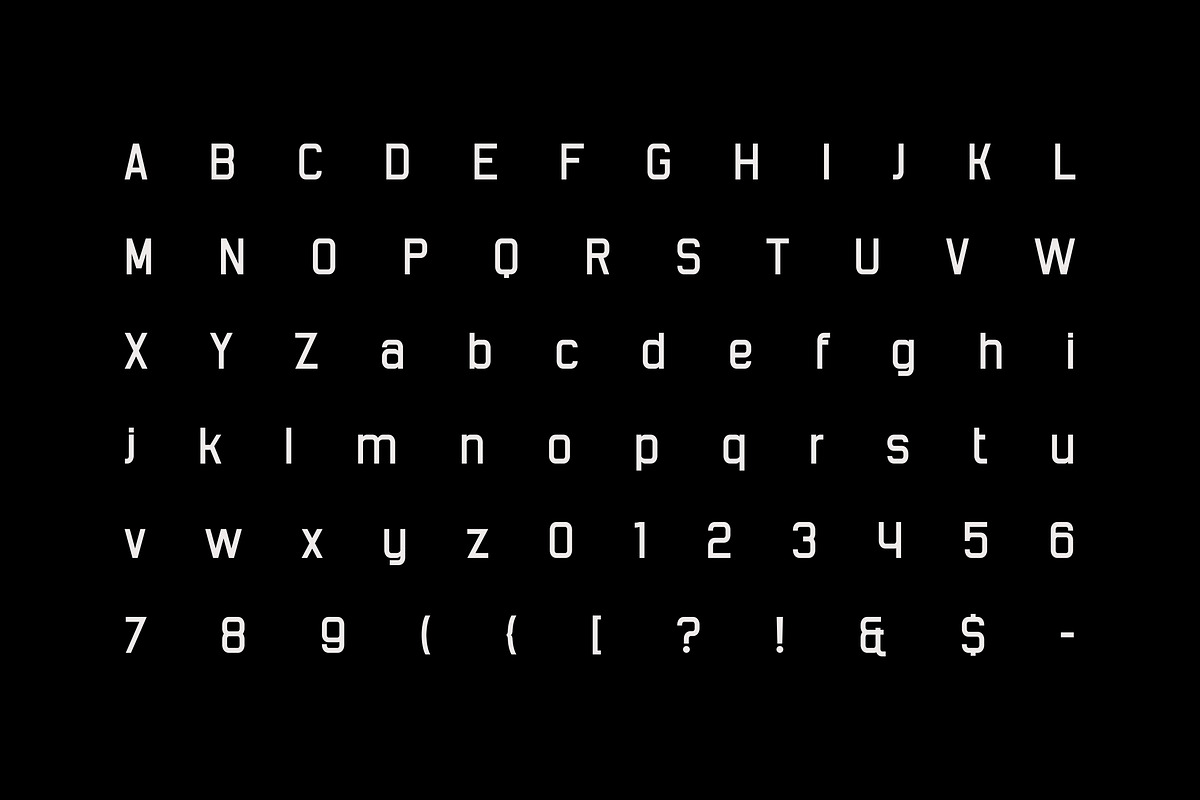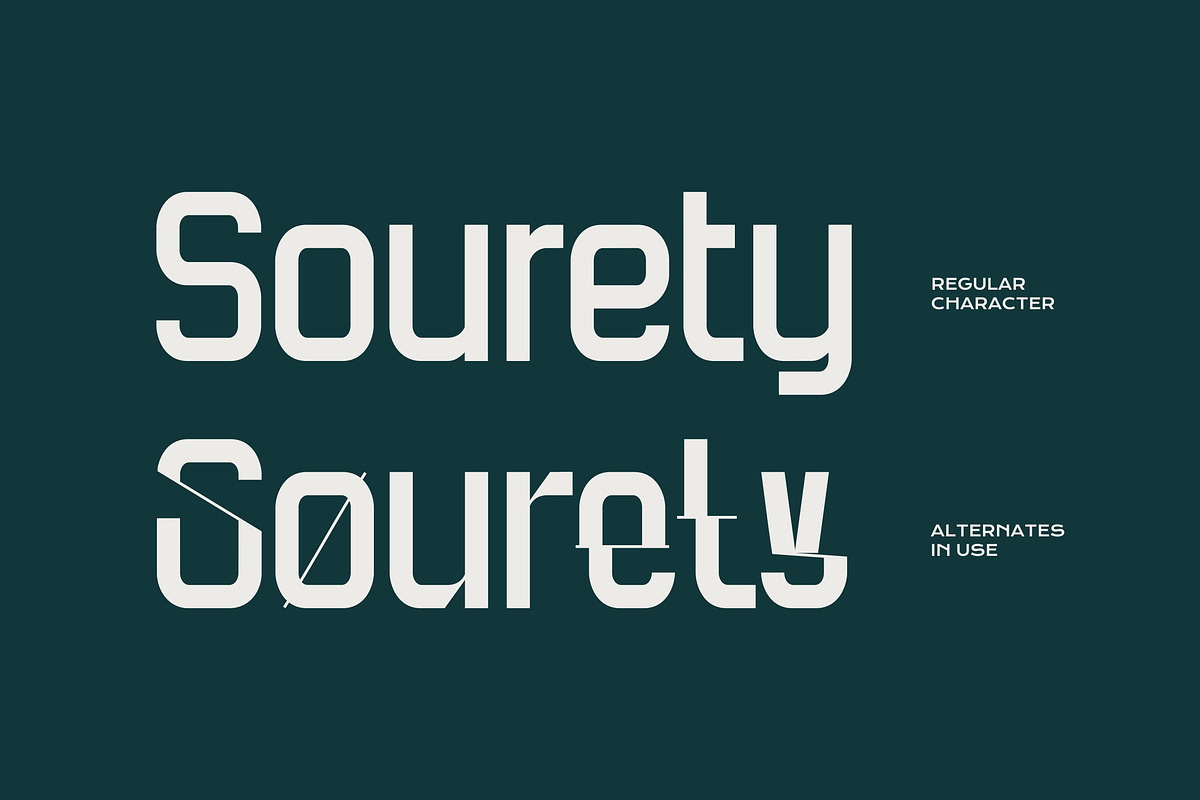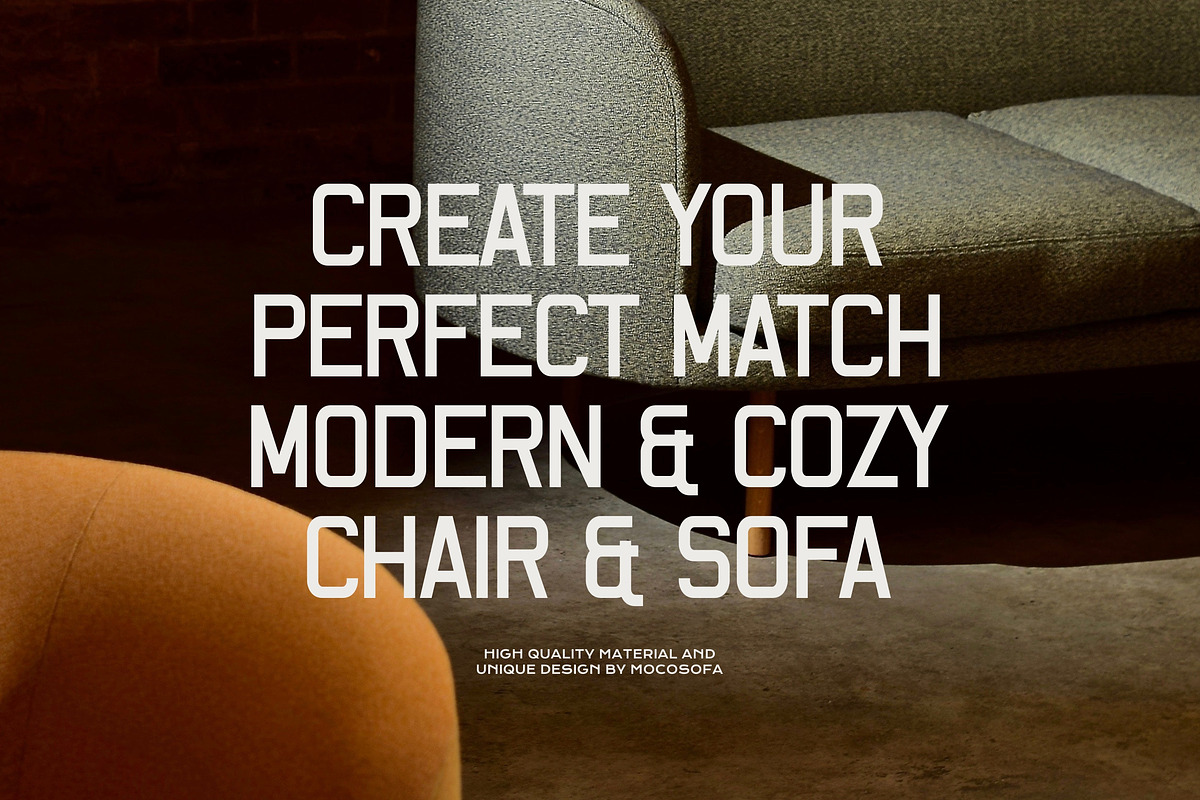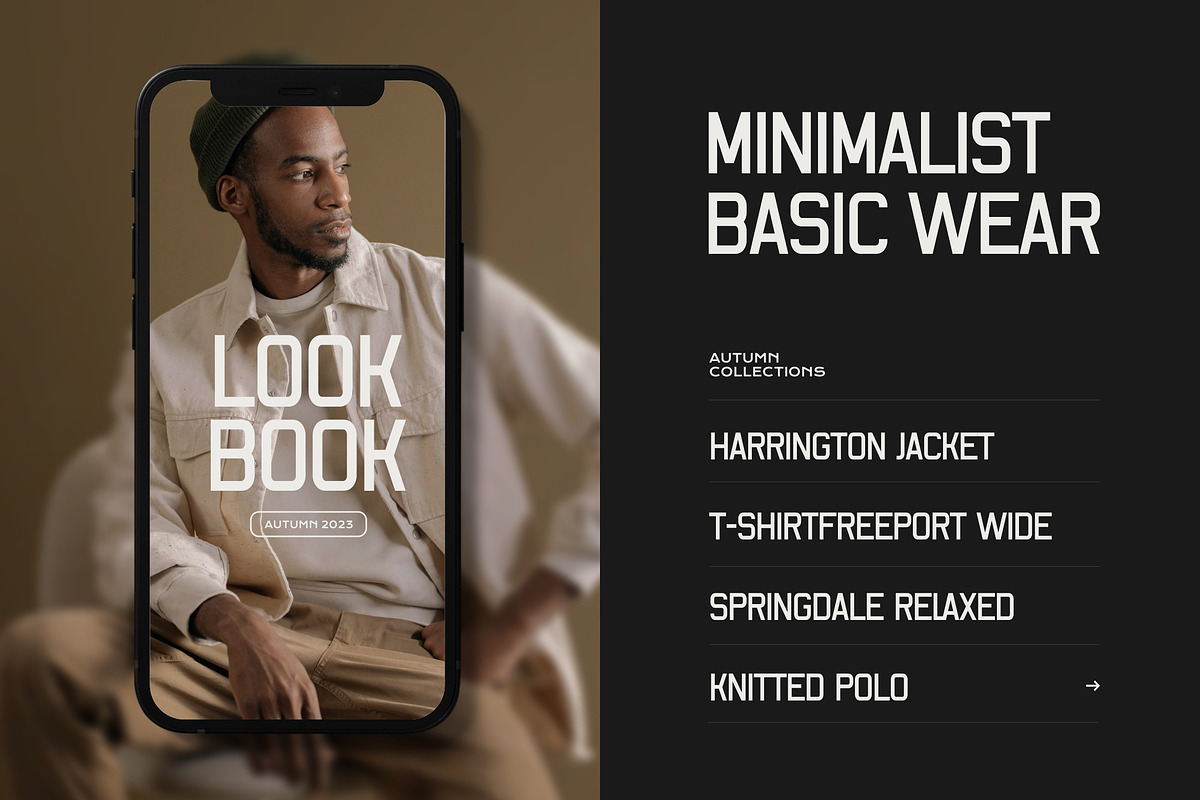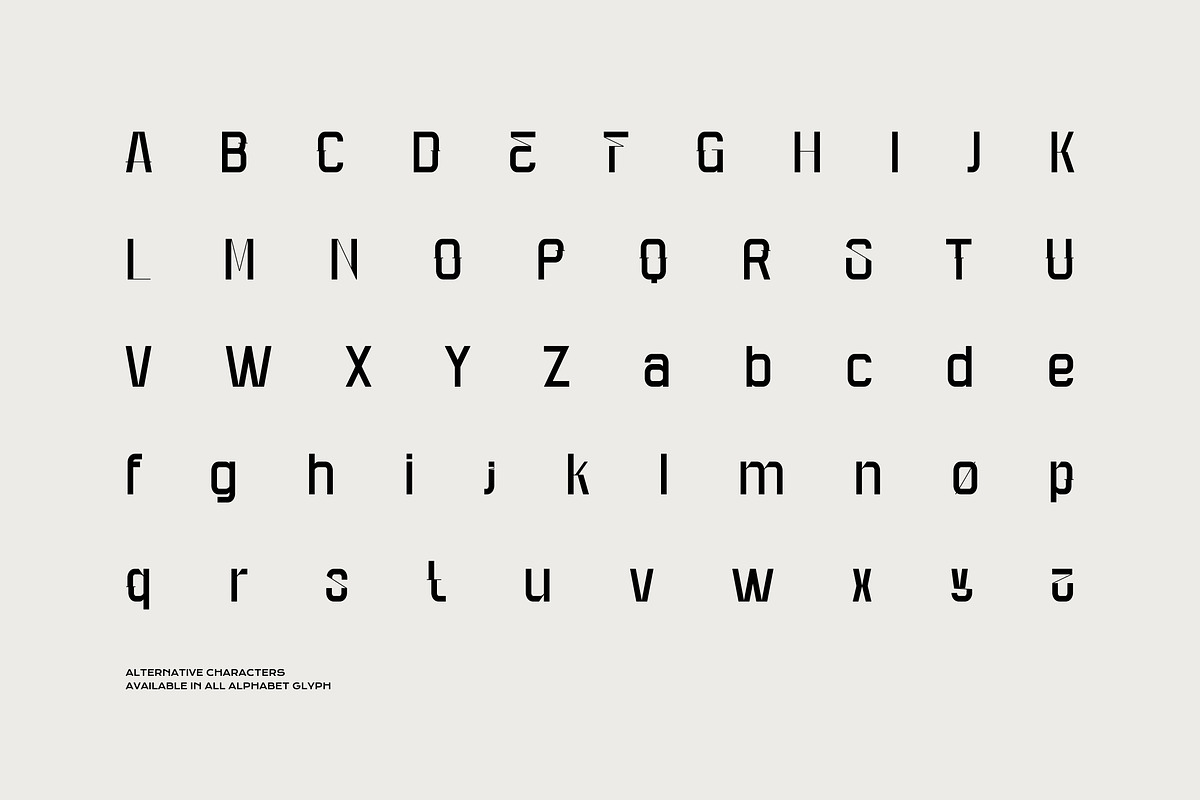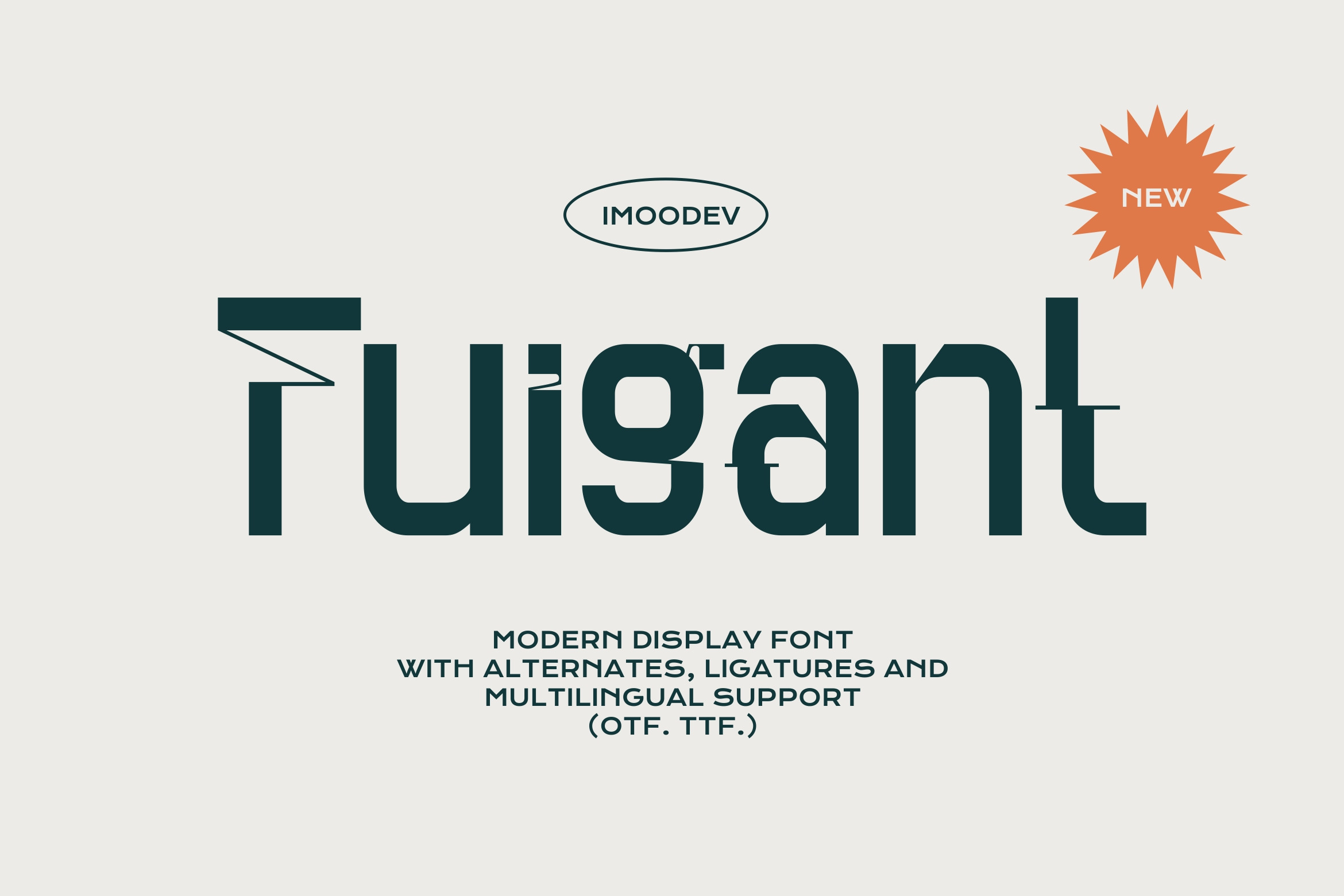
Fuigant - Geometric Futuristic Font
Meet Fuigant, a bold and commanding display font where modern minimalism meets futuristic edge. Designed with precision, Fuigant features a strong, geometric sans serif structure with a wide stance, giving it an inherently stable and impactful presence. Its clean lines and squared off curves make it perfect for creating a sophisticated and contemporary feel.
What truly sets Fuigant apart is its powerful set of stylistic alternates. With a single click, you can transform the clean, classic characters into a dynamic, deconstructed version featuring sharp, diagonal cuts. This unique feature allows for incredible versatility, enabling you to switch between a sleek, minimalist aesthetic and an edgy, sci-fi inspired look.
Fuigant is the ultimate tool for designers looking to make a bold statement. It's perfect for branding, logotypes, headlines, posters, and any project that demands attention and a touch of the future.